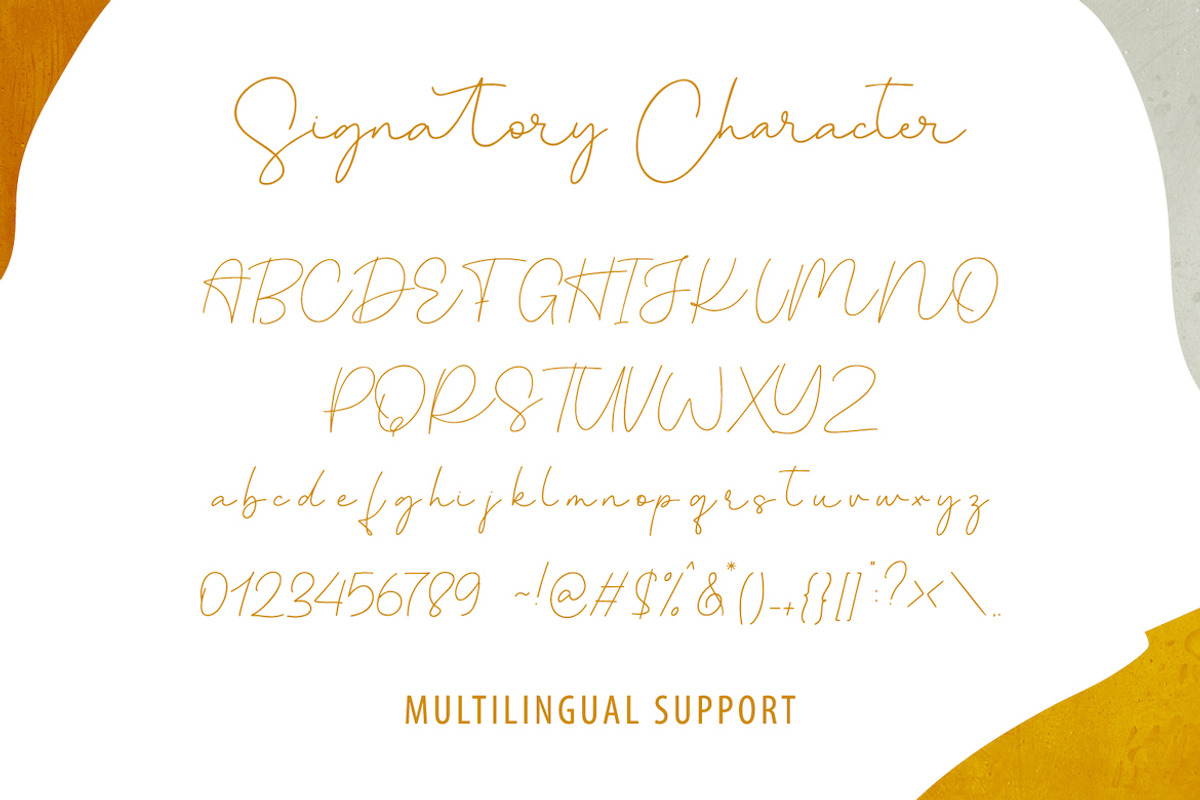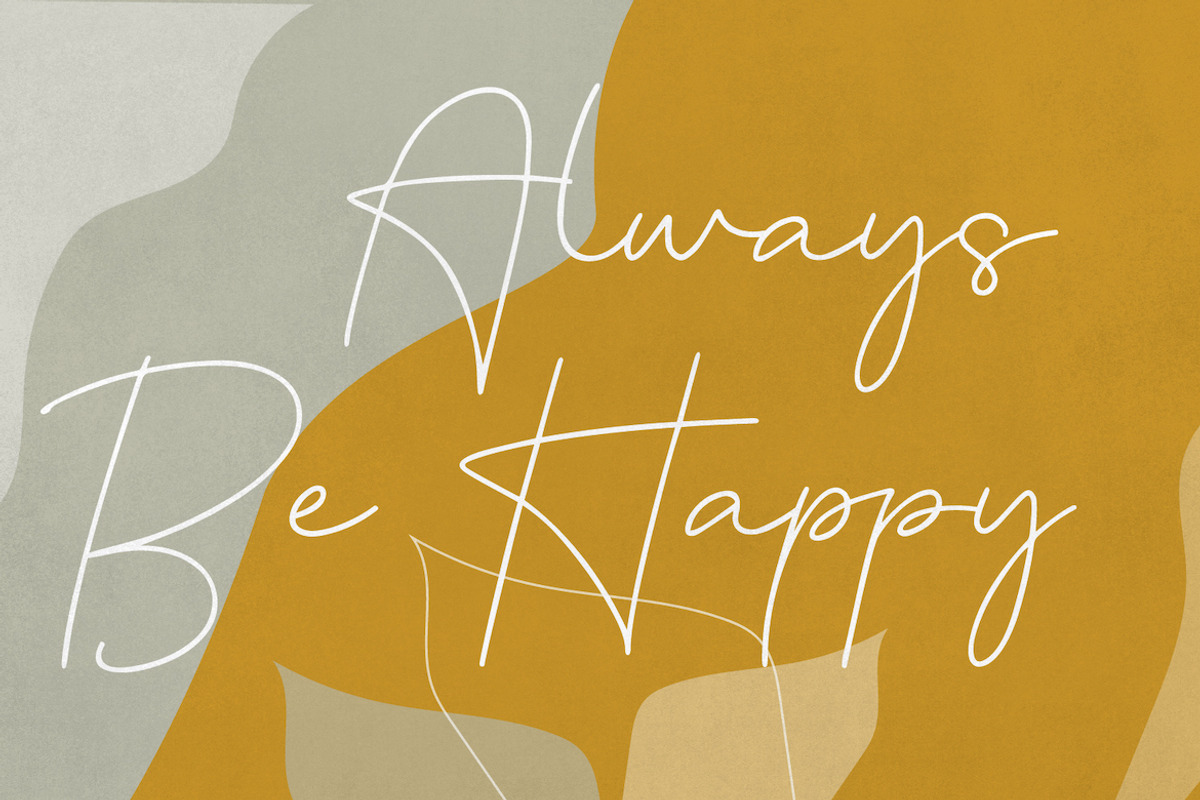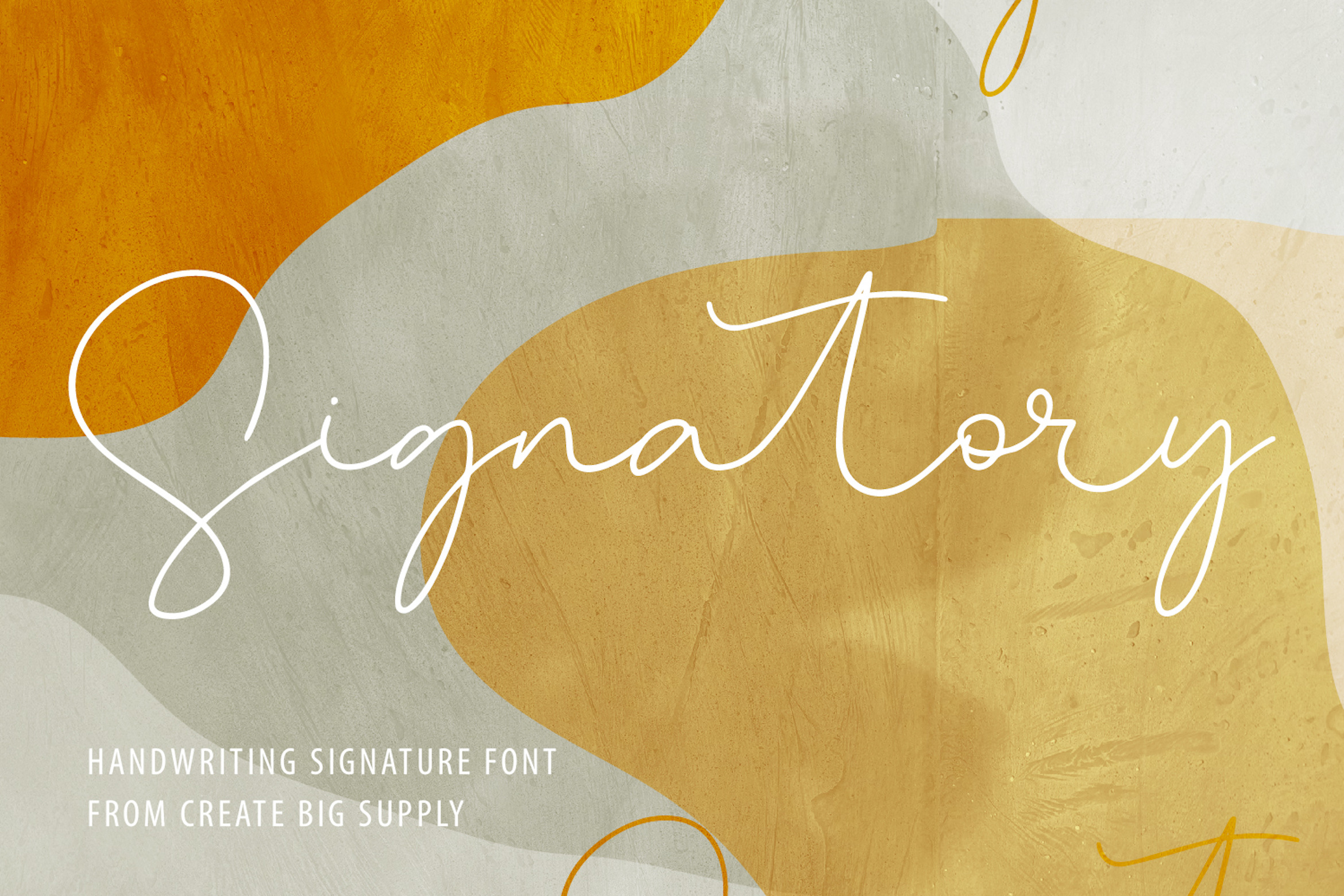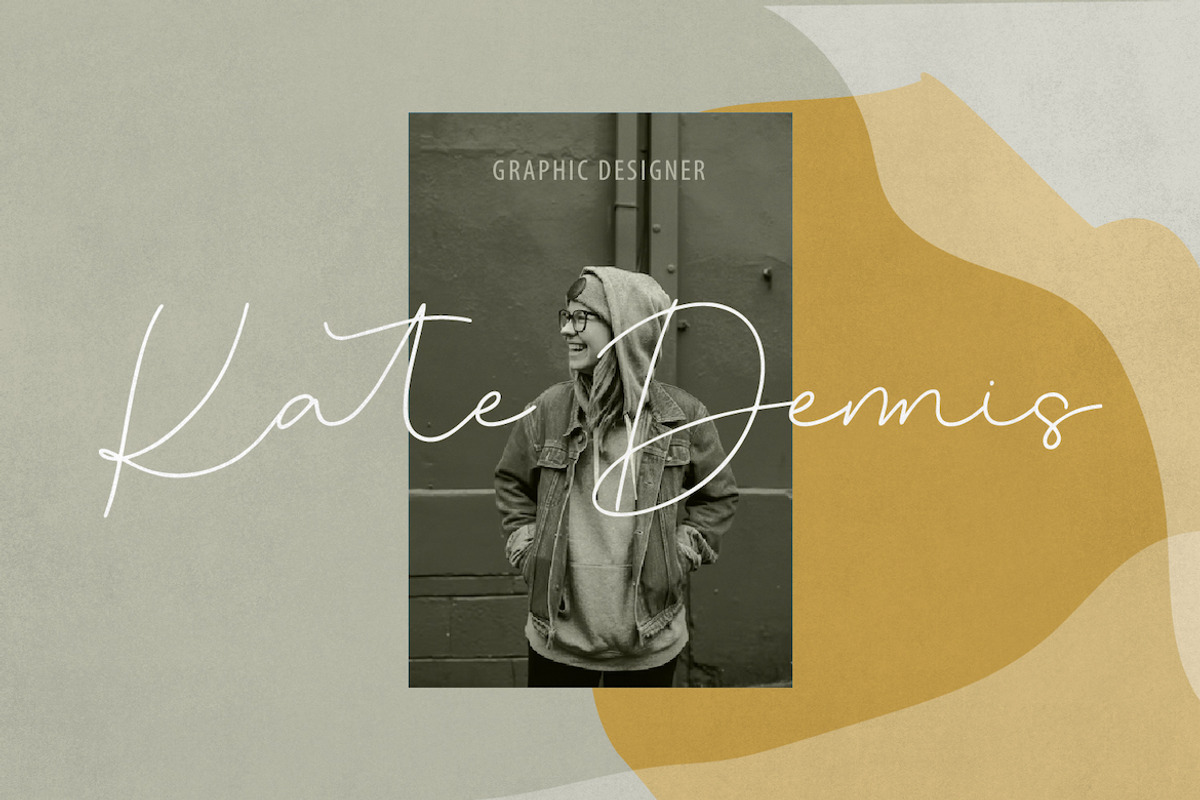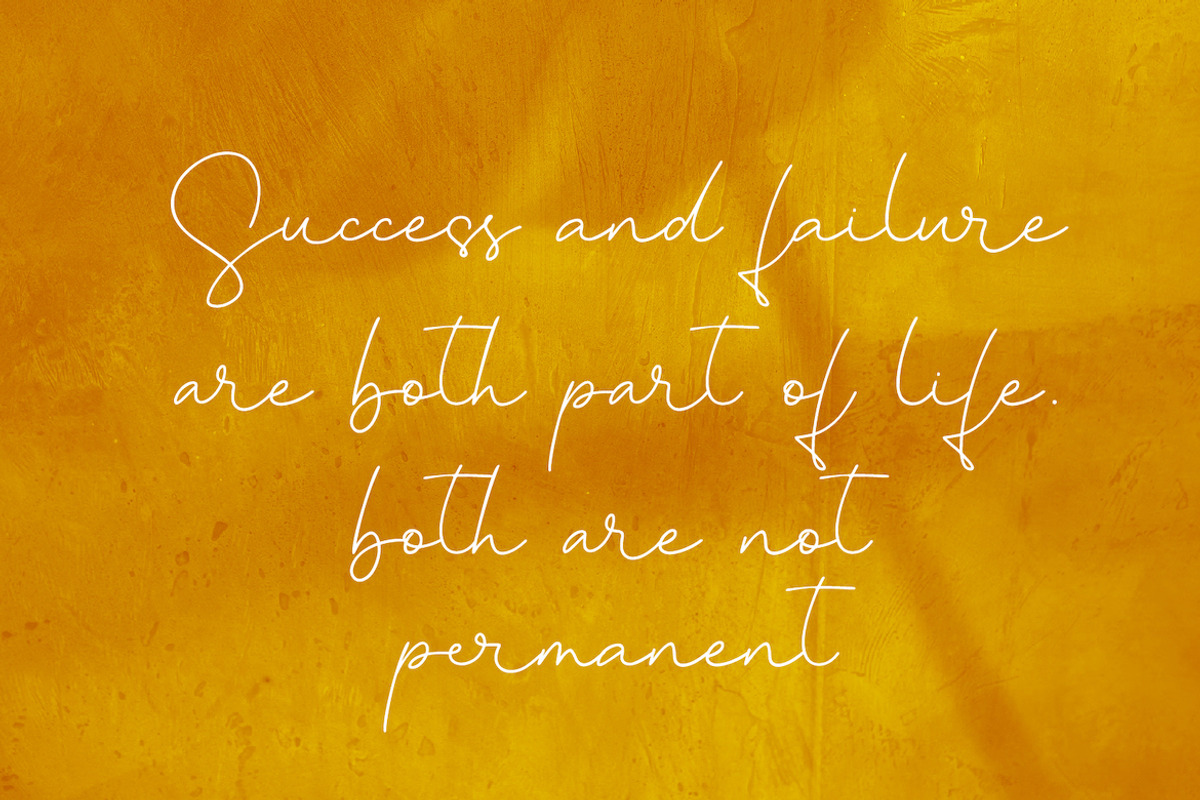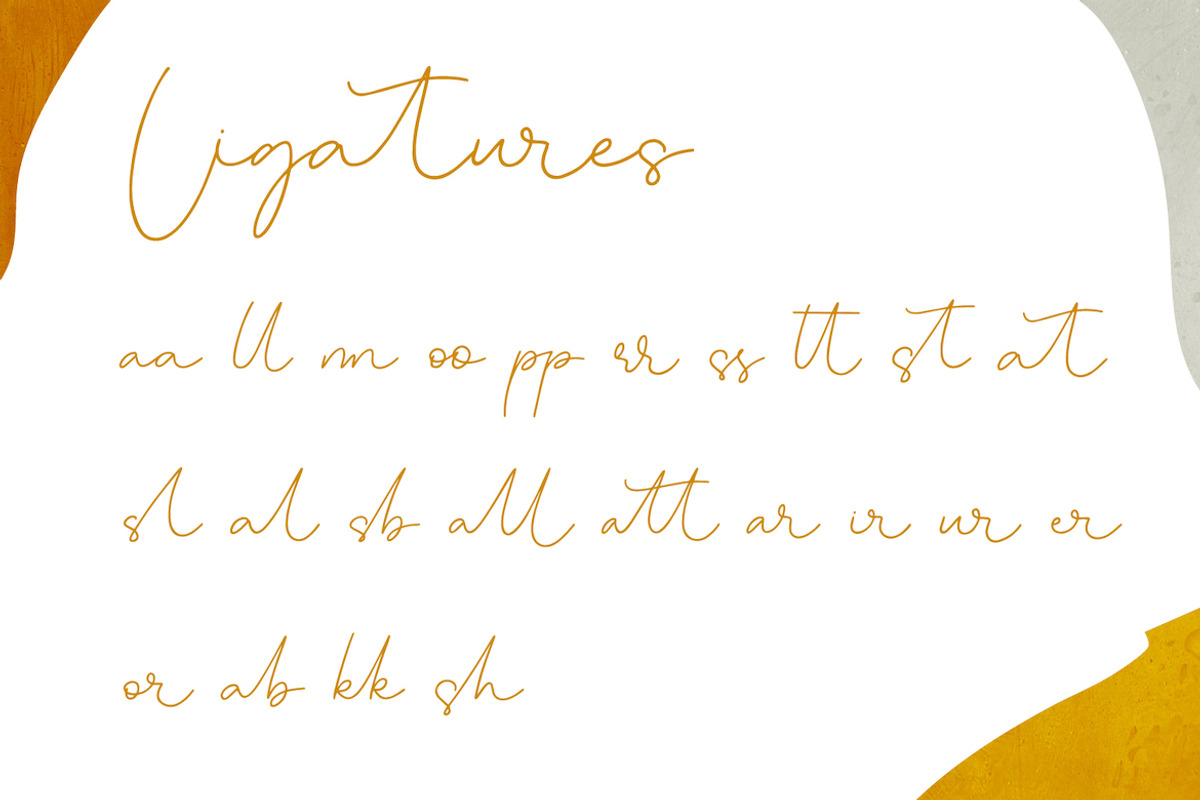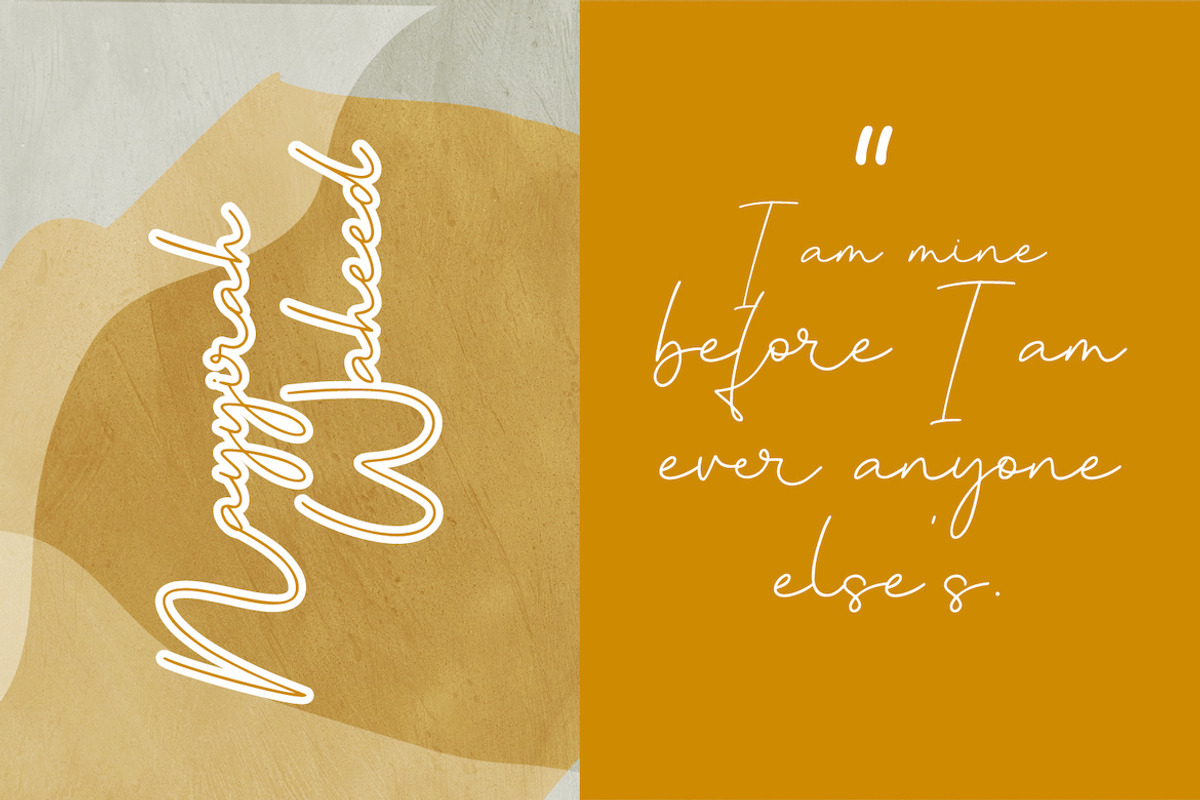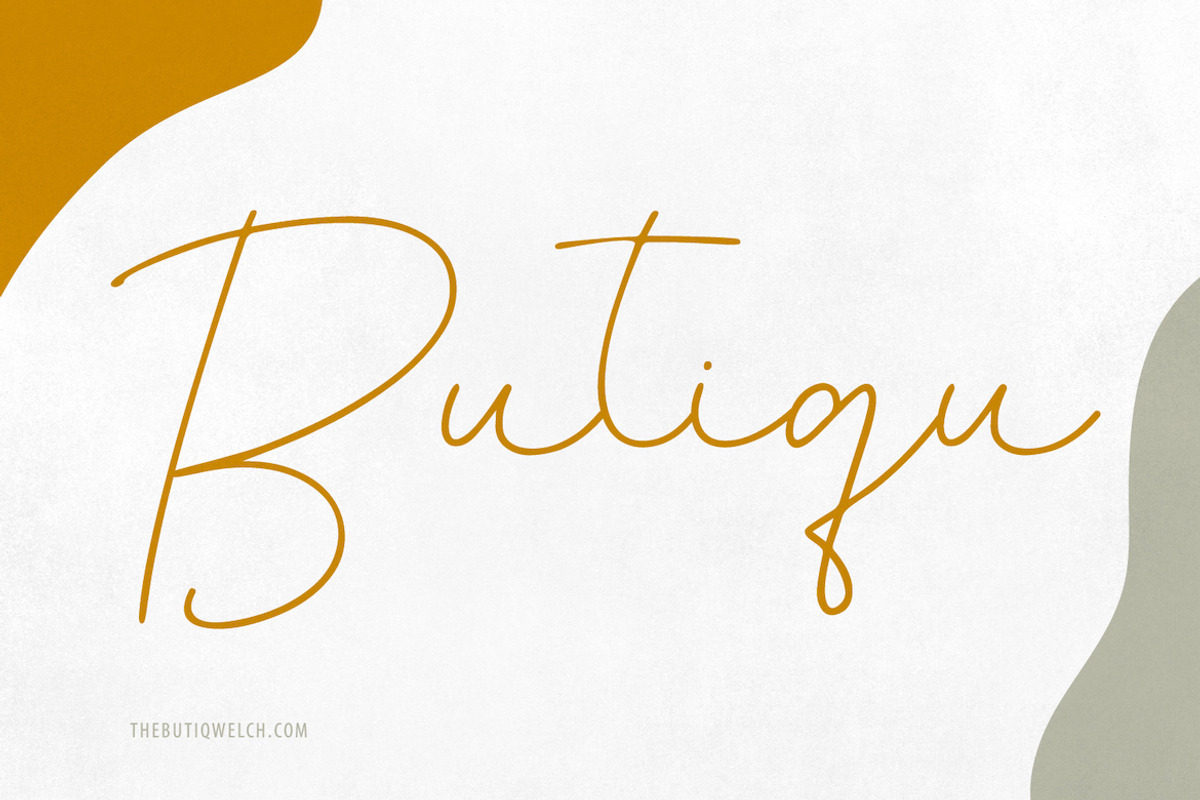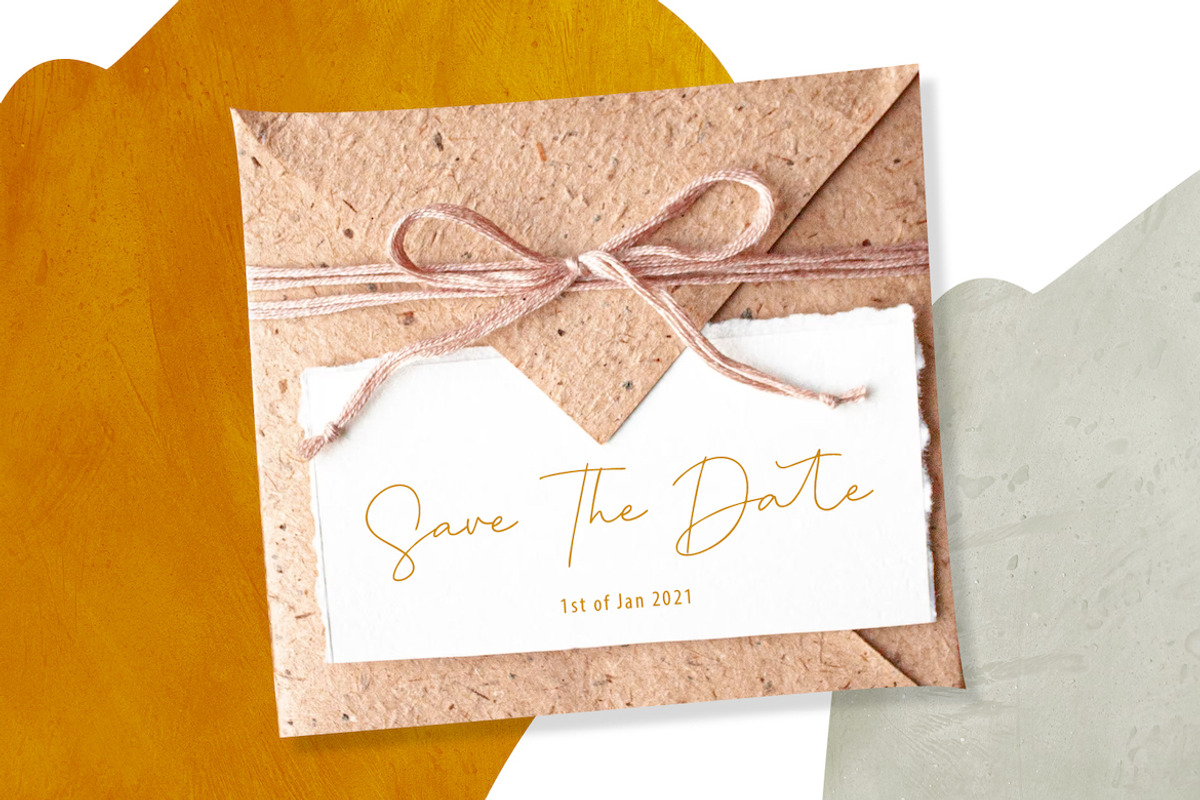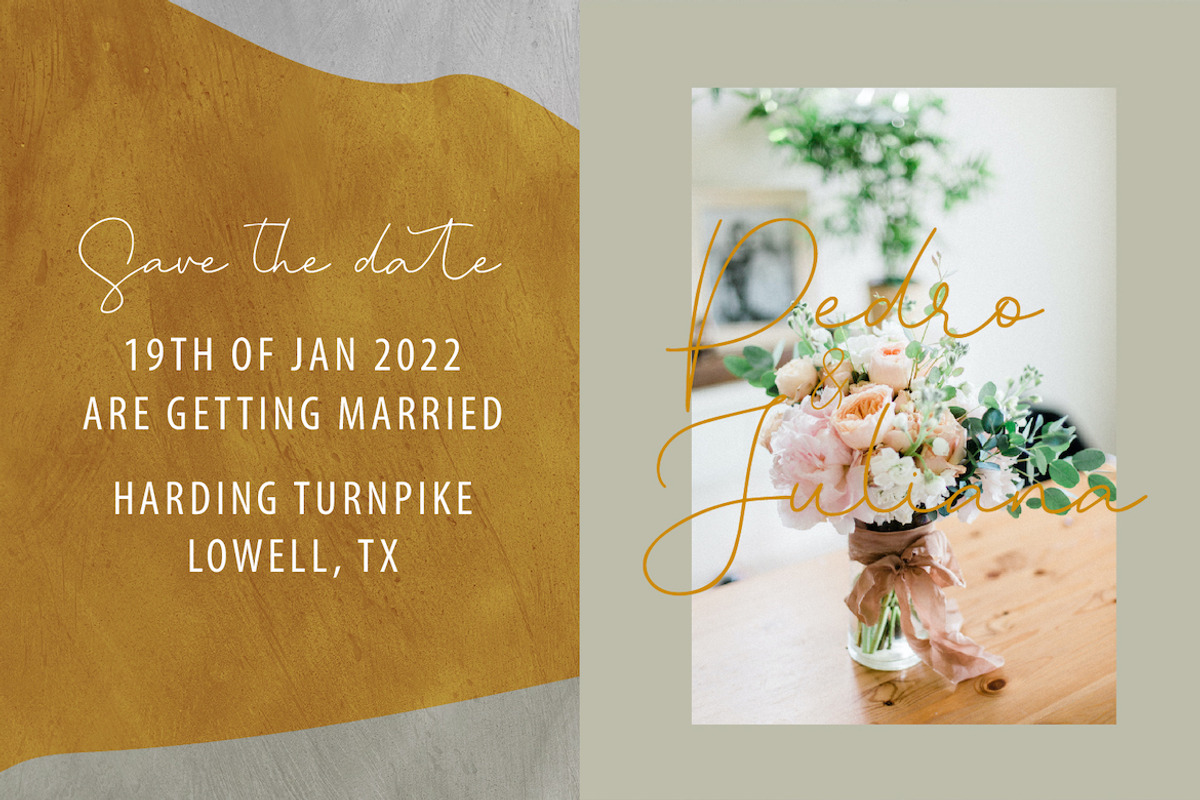
Signatory Handwriting Signature Font
Introducing Signatory, a sophisticated handwritten signature font that adds a touch of elegance to your designs. Get mesmerized by its beautiful style and let your creativity flourish as you use this font to create stunning wedding invitations, captivating stationary art, eye-catching social media posts, and more. With both uppercase and lowercase characters, numbers, and punctuations, Signatory offers versatility and ensures your designs are visually appealing. This font supports multiple languages, allowing you to connect with diverse audiences worldwide. Additionally, Signatory is PUA encoded, granting you easy access to its amazing glyphs and ligatures. Elevate your designs with the timeless elegance of Signatory.